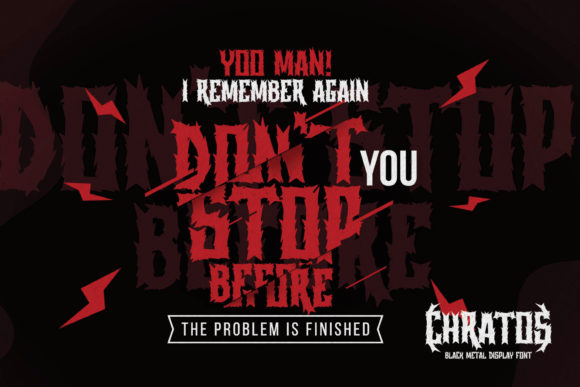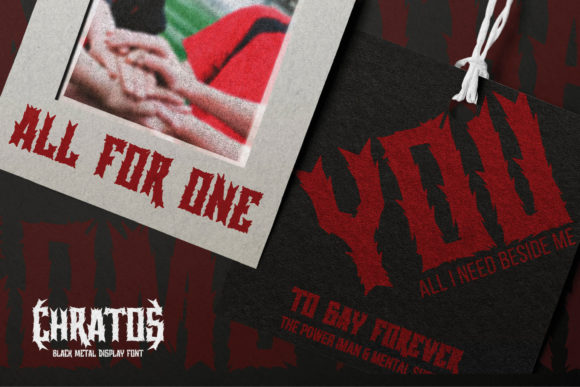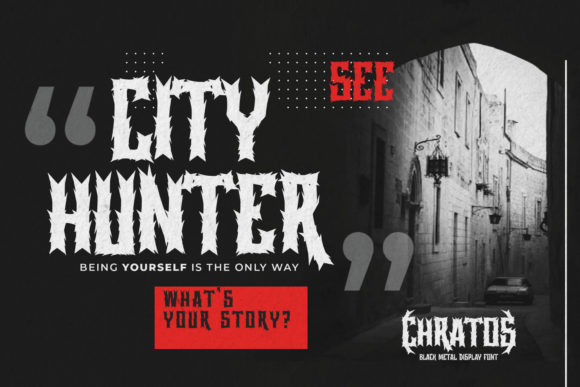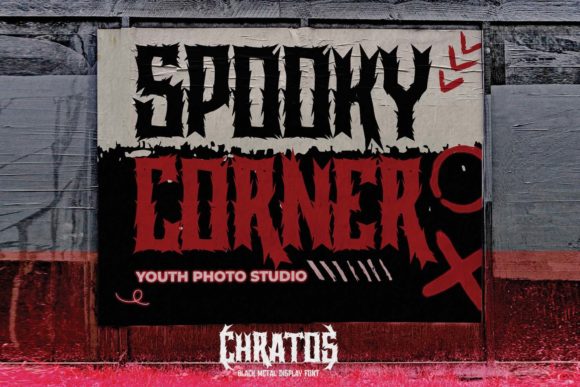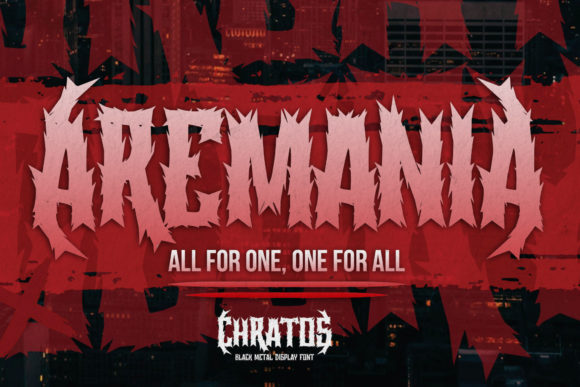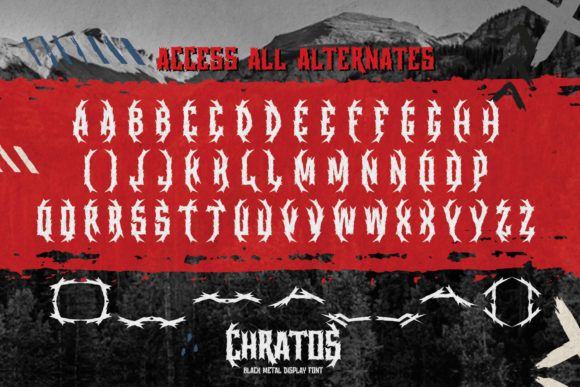
Introducing CHRATOS: The Ultimate Black Metal Display Font for Designers and Crafters
Are you tired of using the same old fonts in your designs? Do you want to add a touch of horror and edginess to your projects? Look no further than CHRATOS, a handmade Rough Brush Font that is perfect for designers and crafters alike. With its unique black metal style and multilingual support, CHRATOS is the perfect addition to your font collection.
What is CHRATOS?
CHRATOS is a black metal display font that is designed to make a statement. With its rough, handmade texture and alternate glyphs, this font is perfect for creating eye-catching designs that demand attention. Whether you’re working on a horror-themed project, a children’s book, or a DIY craft, CHRATOS is the perfect choice.
Key Features of CHRATOS
- Handmade Rough Brush Font: CHRATOS is a unique, handmade font that has been crafted to give your designs a personal touch.
- Alternates and Multilanguage Support: With alternate glyphs and multilingual support, you can create a wide range of designs that cater to different languages and styles.
- PUA Encoded: CHRATOS is PUA encoded, which means you can access all of the glyphs and swashes with ease.
- Perfect for Display and Labeling: CHRATOS is designed for display and labeling, making it perfect for movie covers, posters, movie titles, quotes, and more.
What Can You Use CHRATOS For?
CHRATOS is a versatile font that can be used for a wide range of projects, including:
- Horror Posters and Movie Covers: Add a touch of horror to your designs with CHRATOS.
- Children’s Books and Cartoons: CHRATOS is perfect for creating fun and edgy designs for kids.
- Comics and Graphic Novels: Use CHRATOS to create bold and eye-catching titles and captions.
- DIY Projects and Crafting: CHRATOS is perfect for creating handmade crafts, such as greeting cards, gift tags, and more.
- Branding and Packaging: Use CHRATOS to create unique and memorable brand identities.
- Websites and Photography Overlays: Add a touch of edginess to your website or photography overlays with CHRATOS.
Why Choose CHRATOS?
There are many reasons why you should choose CHRATOS for your next project:
- Unique and Handmade: CHRATOS is a one-of-a-kind font that will set your designs apart from the rest.
- Easy to Use: CHRATOS is PUA encoded, making it easy to access all of the glyphs and swashes.
- Multilingual Support: CHRATOS supports multiple languages, making it perfect for international designs.